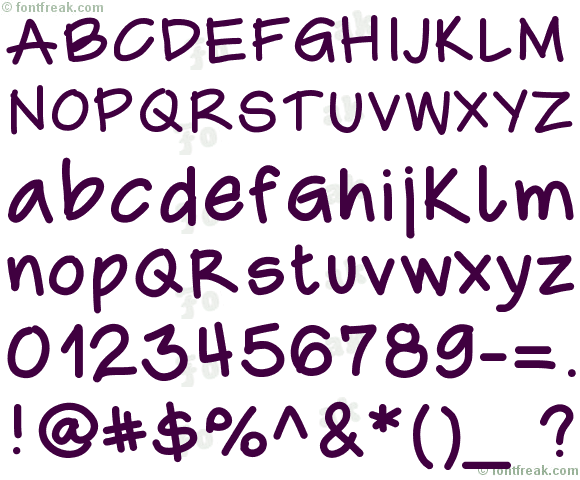
CaroHand
About CaroHand
CaroHand by Carolina Mejia is a charming handwritten font that beautifully captures the essence of personal expression. Designed with a casual, friendly aesthetic, this font features smooth, flowing strokes that evoke a sense of warmth and approachability. The stroke weight varies gently throughout the characters, lending an organic feel that mimics natural handwriting. The letters are well-spaced, ensuring legibility while maintaining a relaxed vibe, making it an excellent choice for various design projects.
This versatile typeface is particularly well-suited for wedding invitations, where its elegant yet informal style adds a personal touch. Additionally, CaroHand shines in the realm of greeting cards, allowing designers to create heartfelt messages that resonate with recipients. Its playful nature also makes it ideal for children's book covers or educational materials, capturing the attention and imagination of younger audiences. Restaurant menus can benefit from CaroHand’s inviting appearance, making the dining experience feel more intimate and welcoming. Content creators will find this font invaluable for social media graphics, where capturing attention quickly is essential.
The target audience for CaroHand includes graphic designers, small business owners, and content creators who seek to convey authenticity and creativity in their work. Its freeware license offers an accessible option for those looking to enhance their designs without breaking the budget. What sets the CaroHand font apart is its unique ability to blend professionalism with a personal touch, making it a standout choice for anyone aiming to create designs that feel both polished and genuine. For those interested in this delightful typeface, a CaroHand font free download is readily available, inviting all to explore its possibilities.